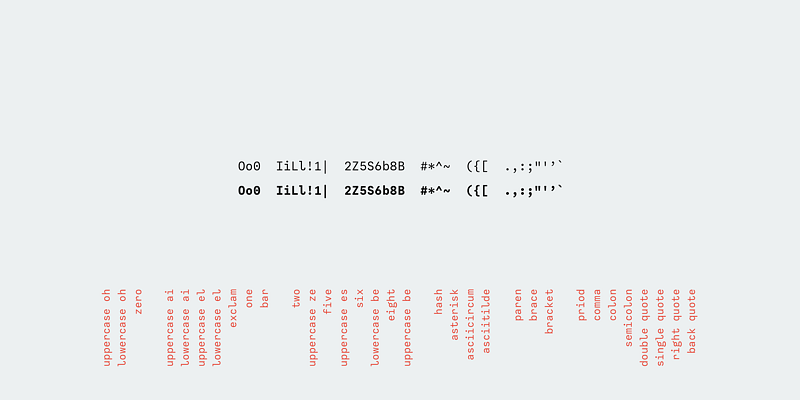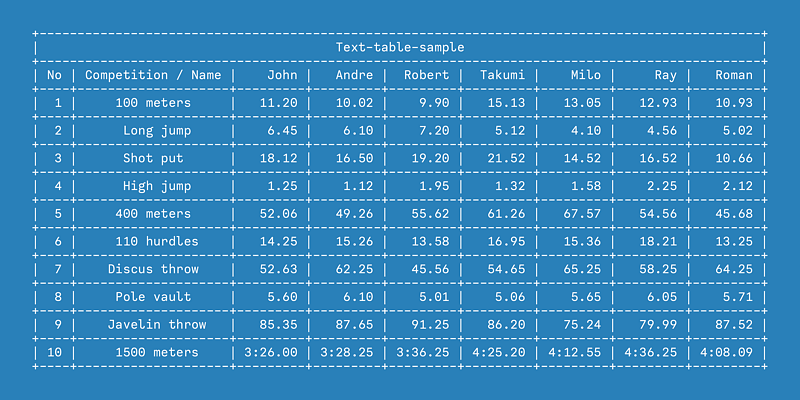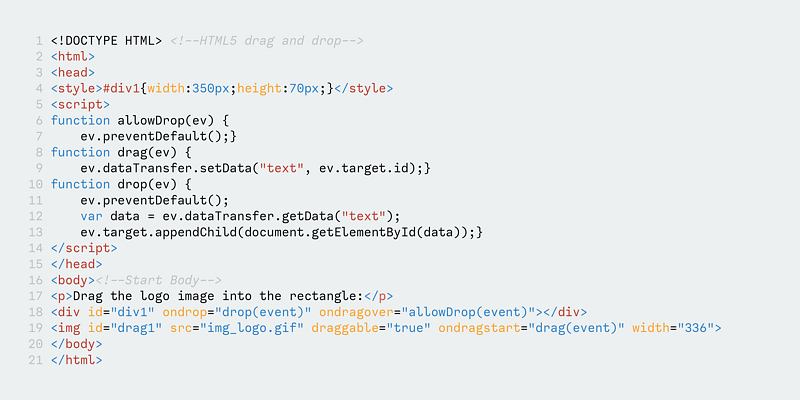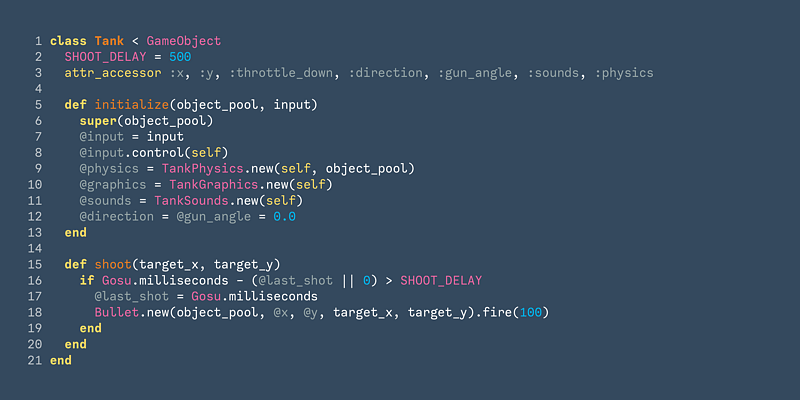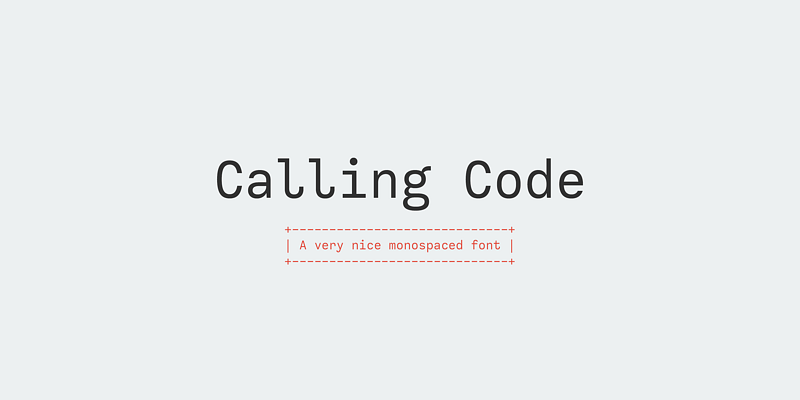
Calling Code is a monospaced font family for coding and tabular layout. This font has slightly condensed width and also has good distinguish-ability and legibility and cute curly tails.